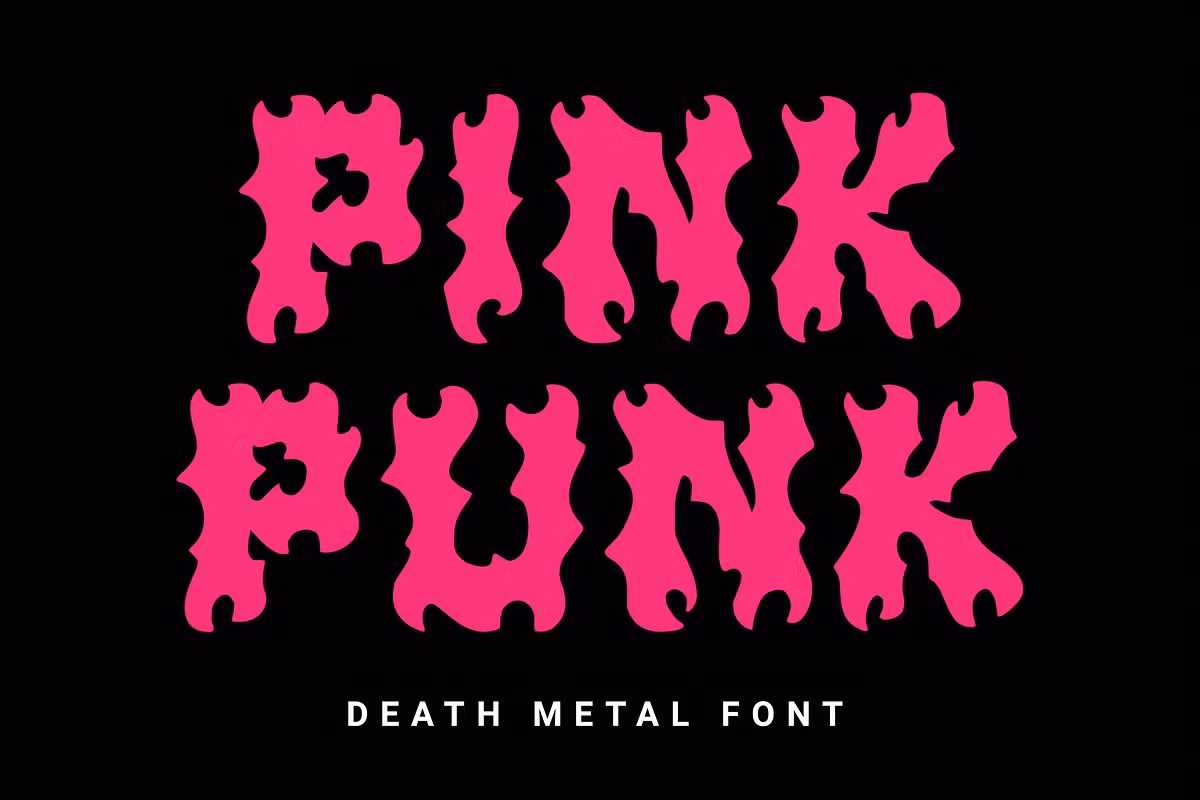
Pink Punk – Death Metal Font Free Download
Pink Punk – Death Metal Font Free Download is a bold and chaotic display typeface designed to channel the raw energy of underground music culture. With jagged edges, distorted forms, and an aggressive aesthetic, Pink Punk is perfect for death metal band logos, concert posters, album covers, streetwear, and alternative branding that demands intensity and rebellion.
Crafted with gritty detail and a punk-infused edge, Pink Punk – Death Metal Font Free Download captures the spirit of hardcore music scenes while offering a unique visual identity. It thrives in bold, high-contrast designs where the type becomes part of the artwork itself—chaotic, loud, and unforgettable.